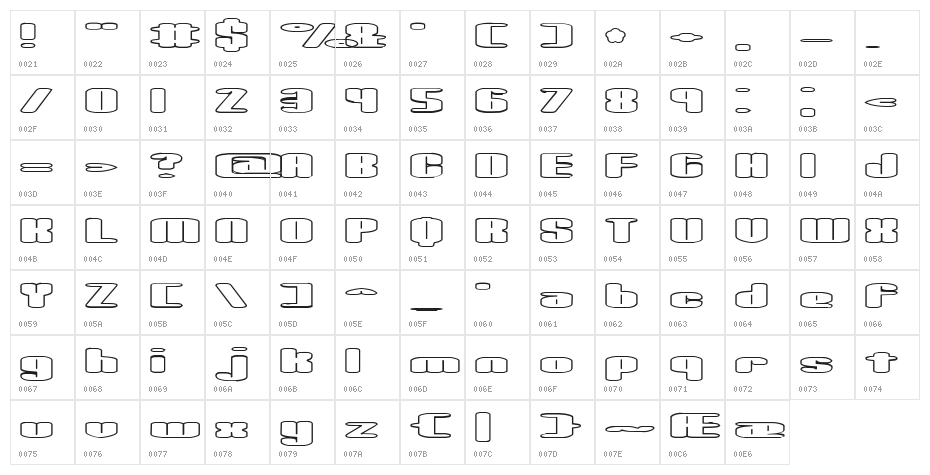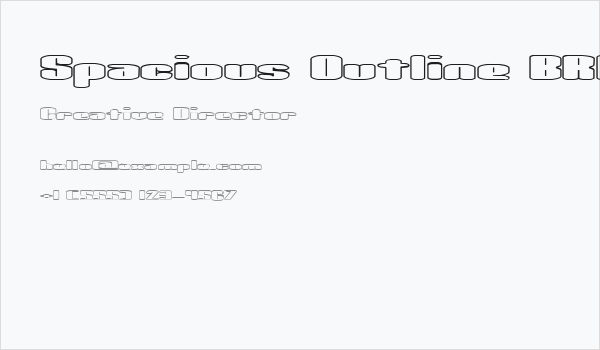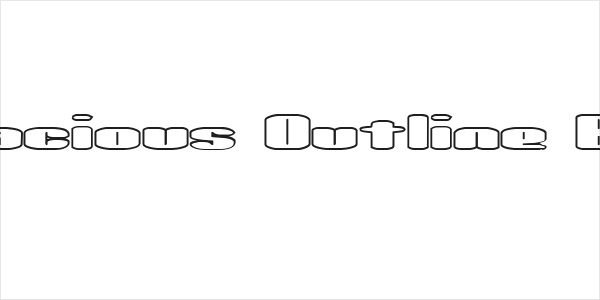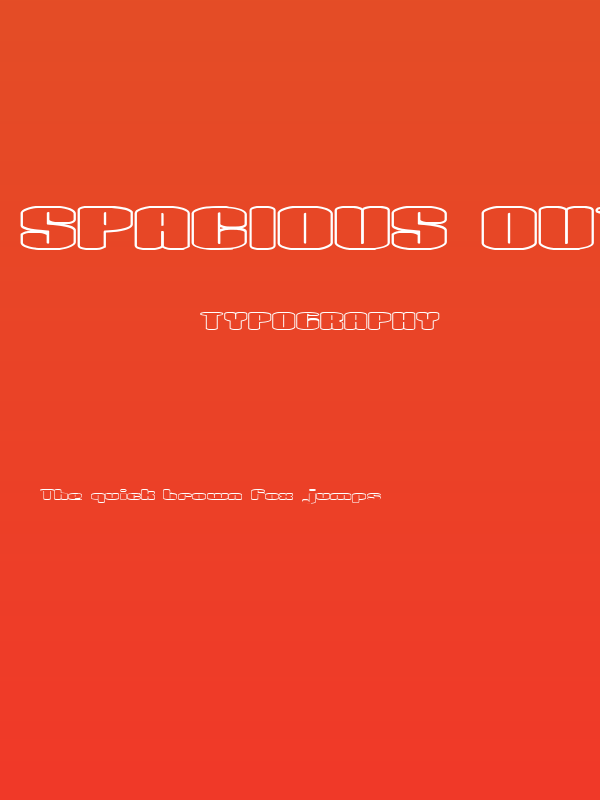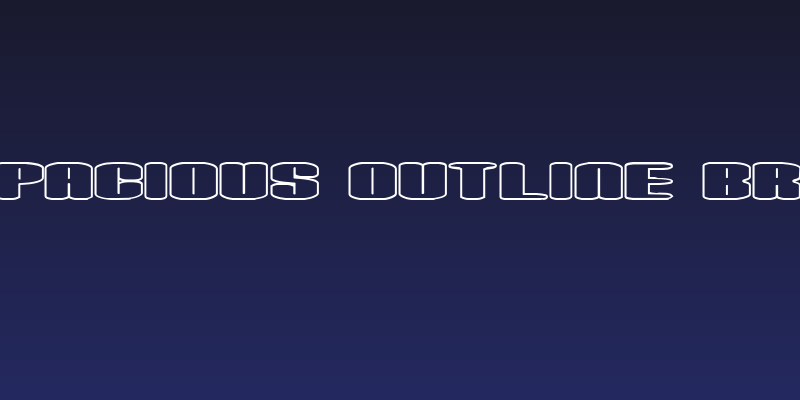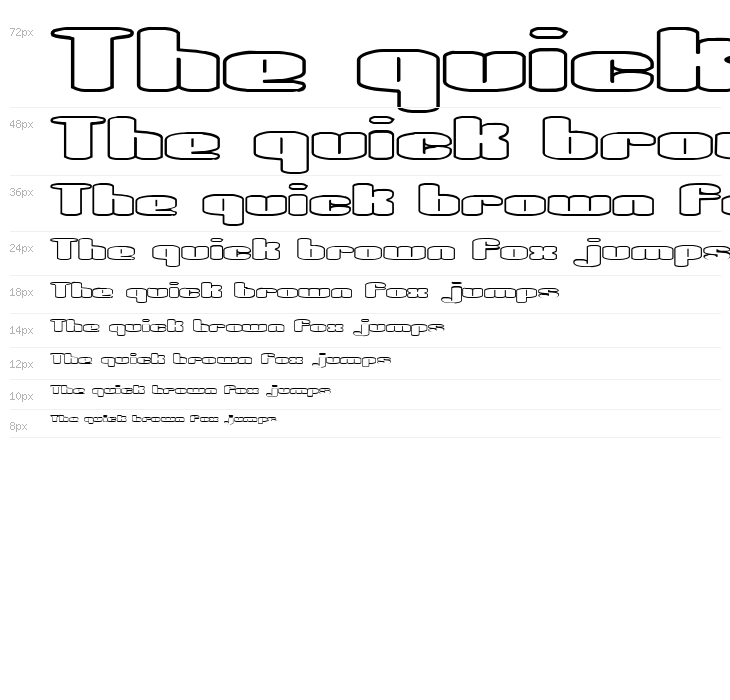
Spacious Outline BRK Font
Spacious Outline BRK Description
This font features a bold, outlined style with a geometric and spacious appearance. The characters are uniformly wide, with rounded edges that give a soft, approachable feel. The outline design creates a hollow effect, making it ideal for overlaying on colorful backgrounds or images. The uppercase and lowercase letters maintain a consistent width, contributing to a cohesive look. Numbers and special characters follow the same design principles, ensuring versatility across various uses. The font's unique style makes it stand out, perfect for creative and modern design projects.
| Proposed Projects | Ideal for posters, logos, headlines, and creative digital artwork. |